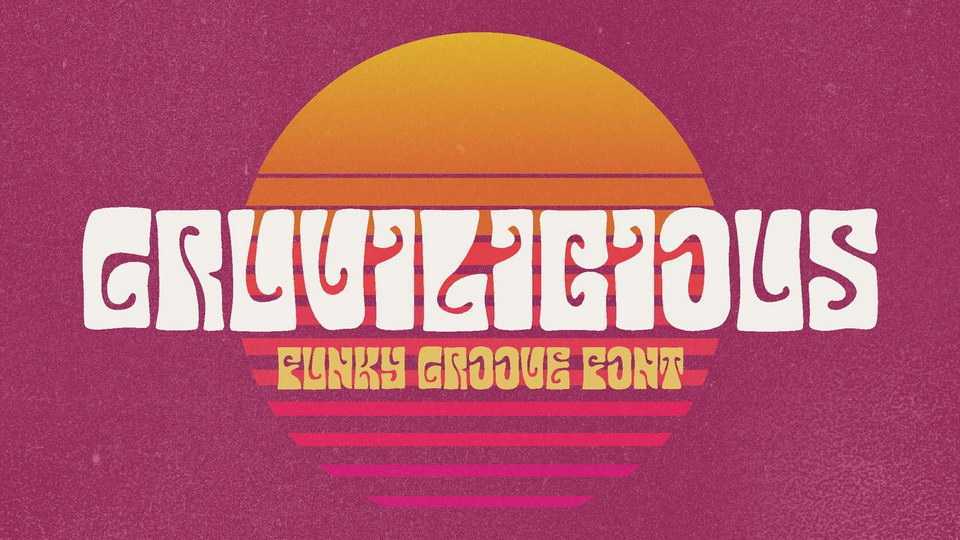
Download Gruvilicious, a retro groovy font. Feel the 70s and 80s vibe on the Gruvilicious font. The funky and psychedelic vibe is all over the place. Get that funk again!